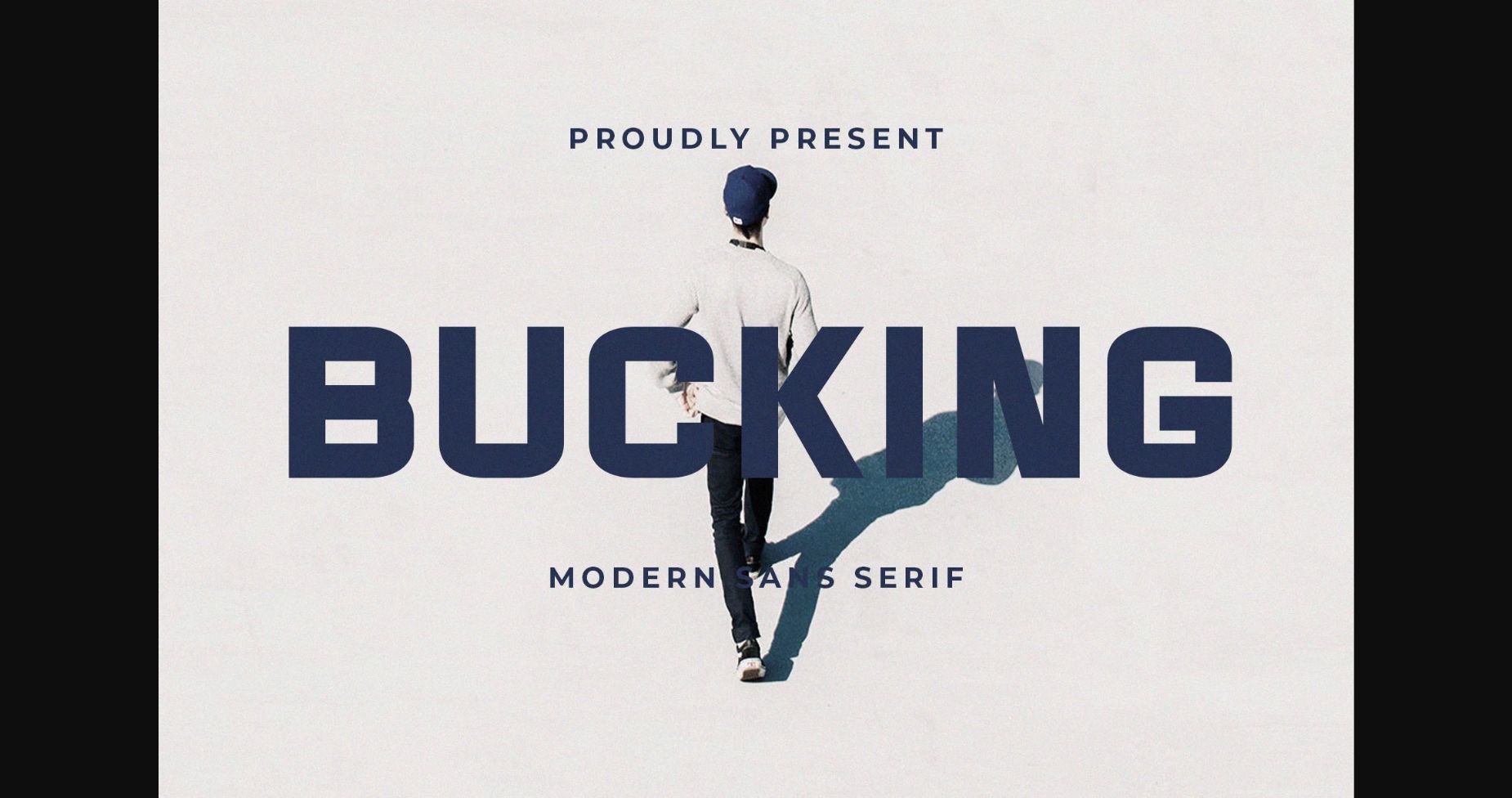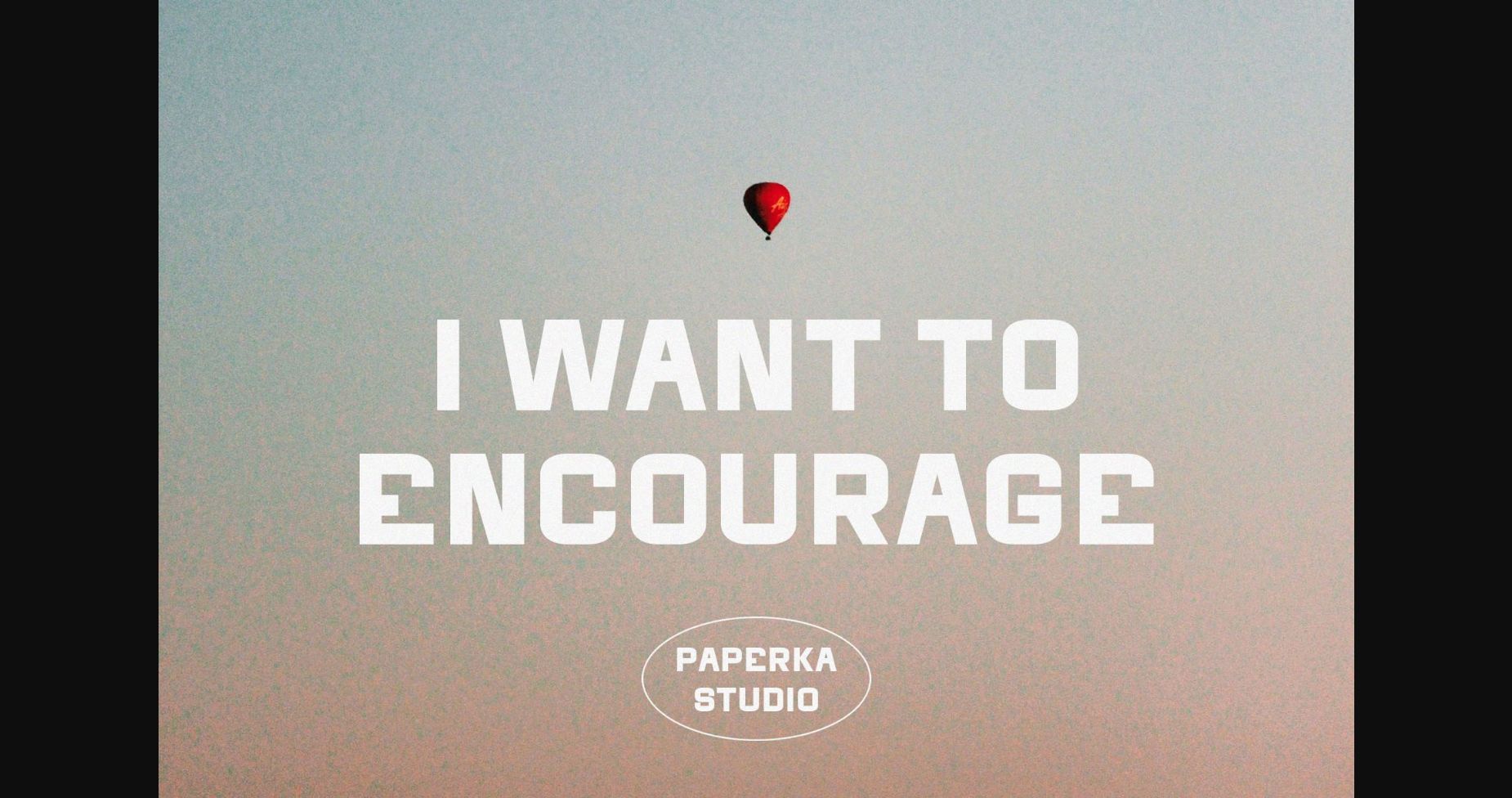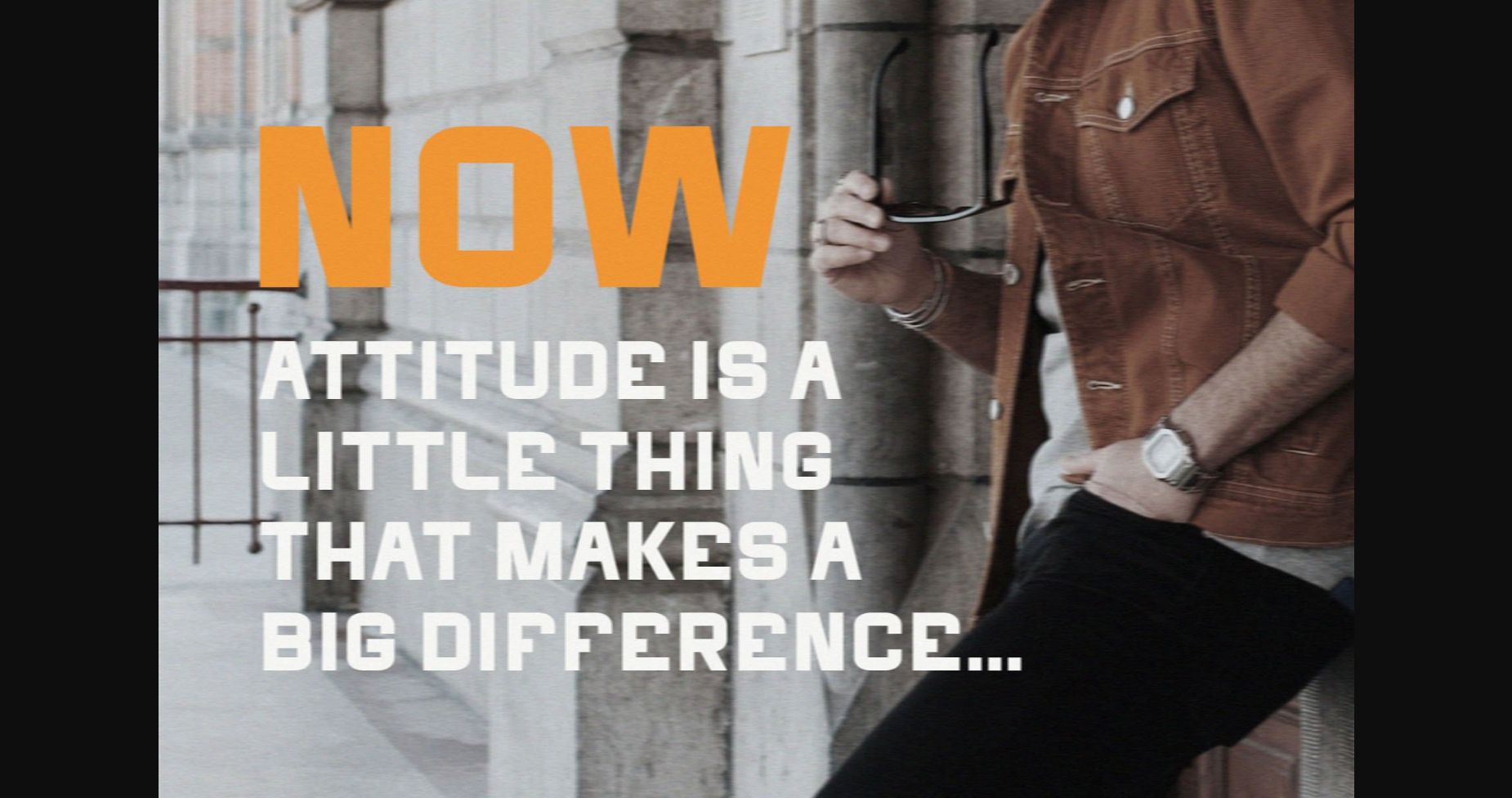
Bucking Font
About Bucking Font
Bucking is a modern and innovative sans serif font. This typeface is classy and supremely legible and stands out in both large and small designs be it a display or body text.